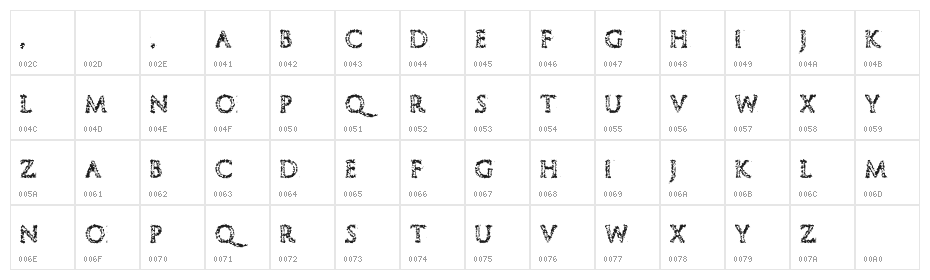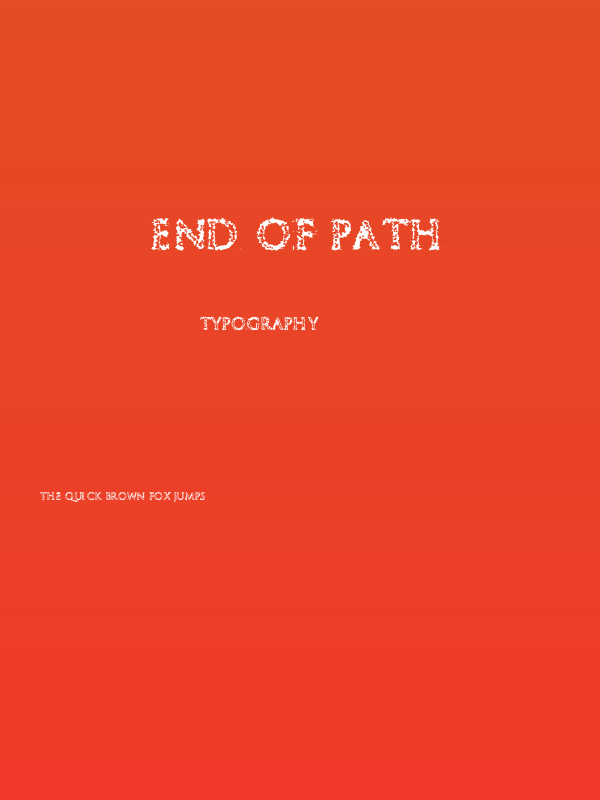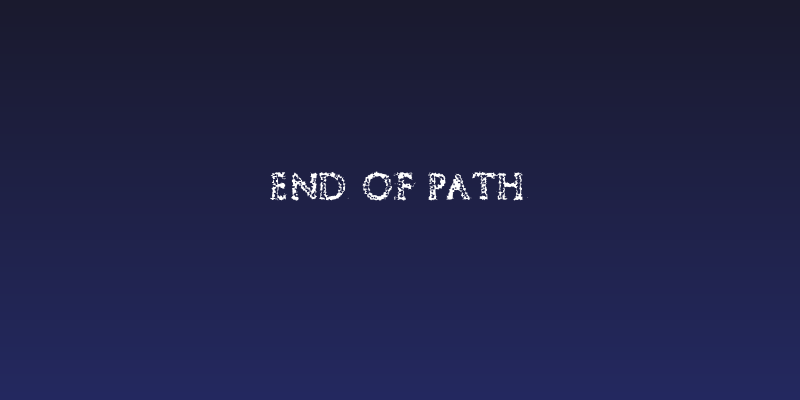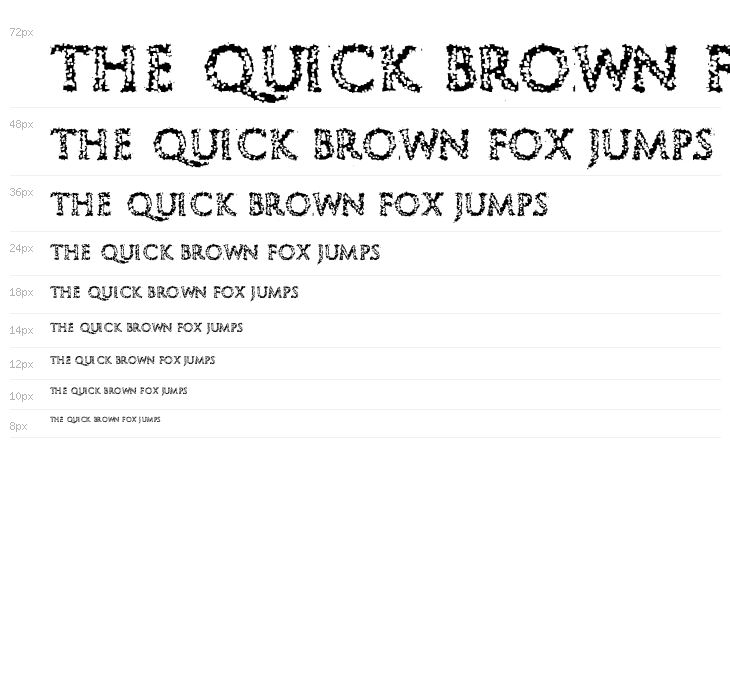
End of Path Font
End of Path Description
This font features a highly decorative and textured style, reminiscent of a distressed or eroded surface. Each character is crafted with a unique pattern that gives the appearance of being weathered or worn, adding a sense of depth and complexity. The uppercase letters are bold and prominent, making them suitable for attention-grabbing designs. The overall aesthetic is both artistic and rugged, making it ideal for projects that require a distinctive and unconventional look. The font's intricate details suggest a hand-crafted quality, perfect for creative and artistic applications.
| Proposed Projects | Ideal for album covers, posters, artistic branding, and any project needing a bold, creative touch. |